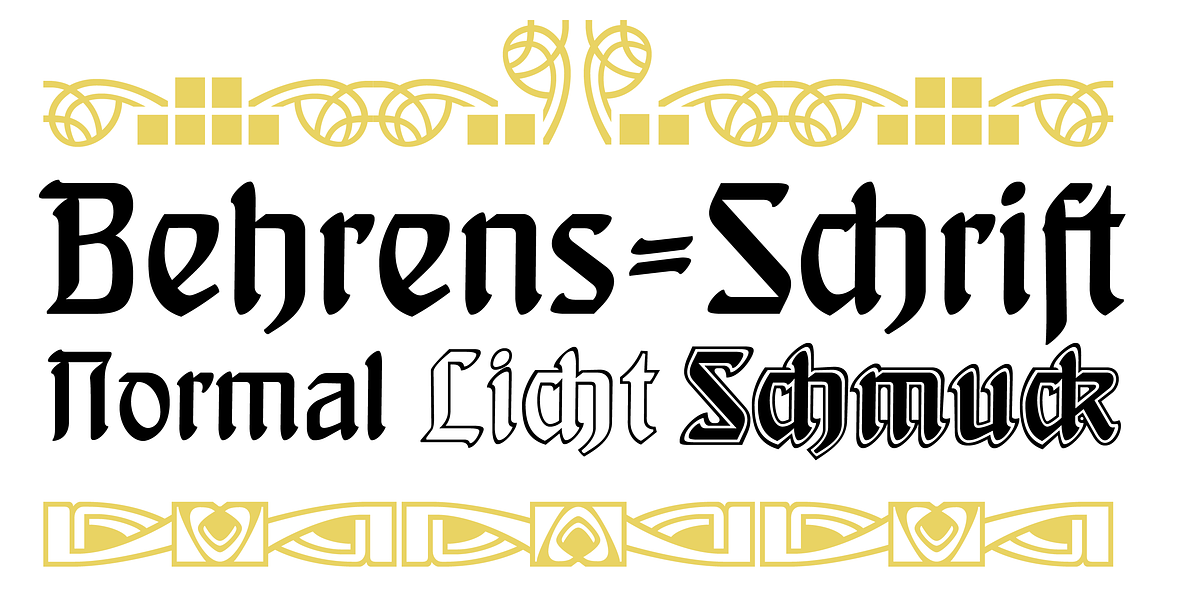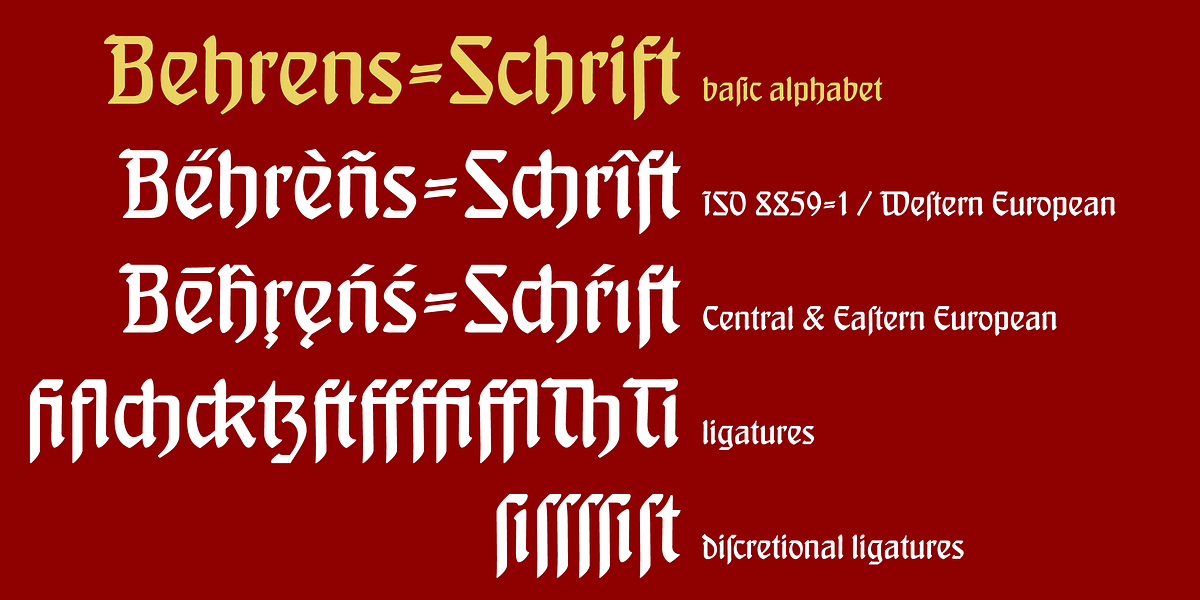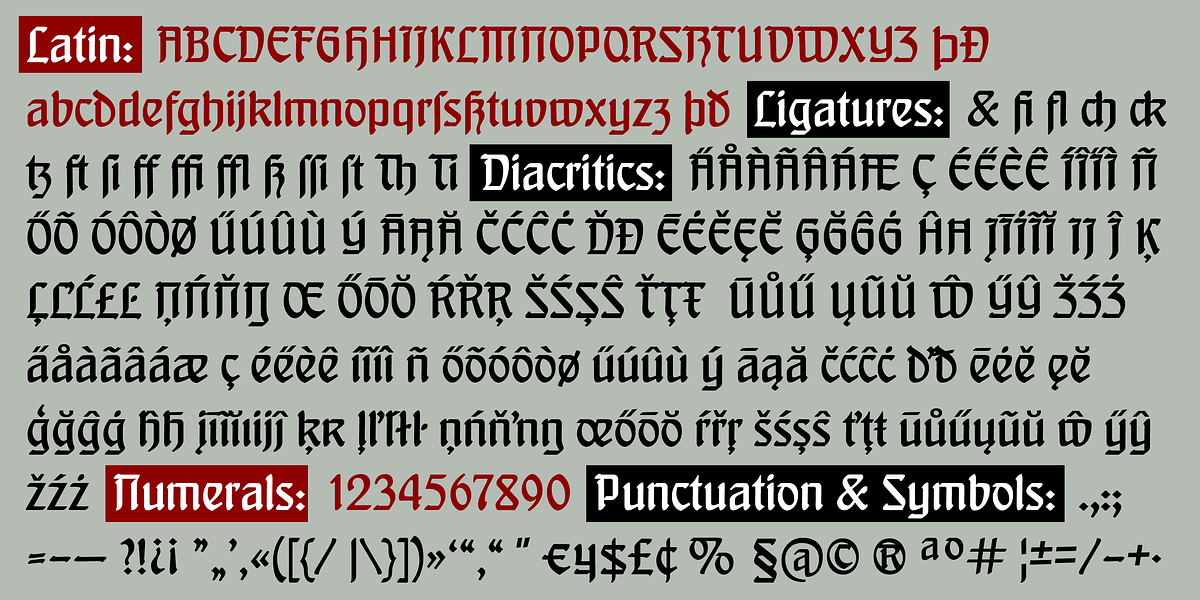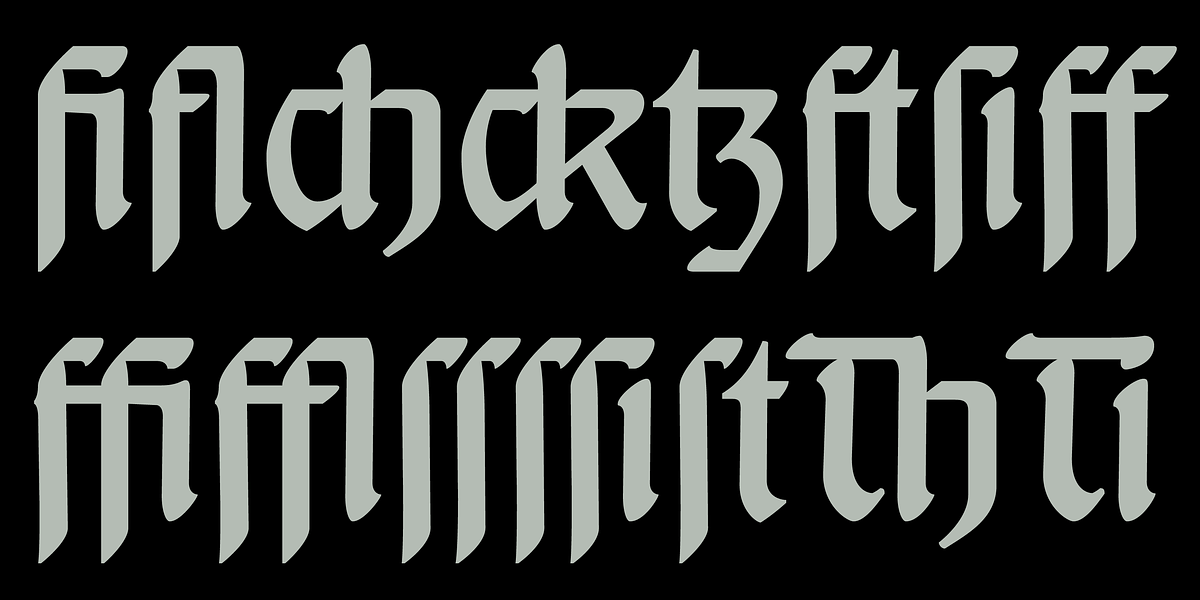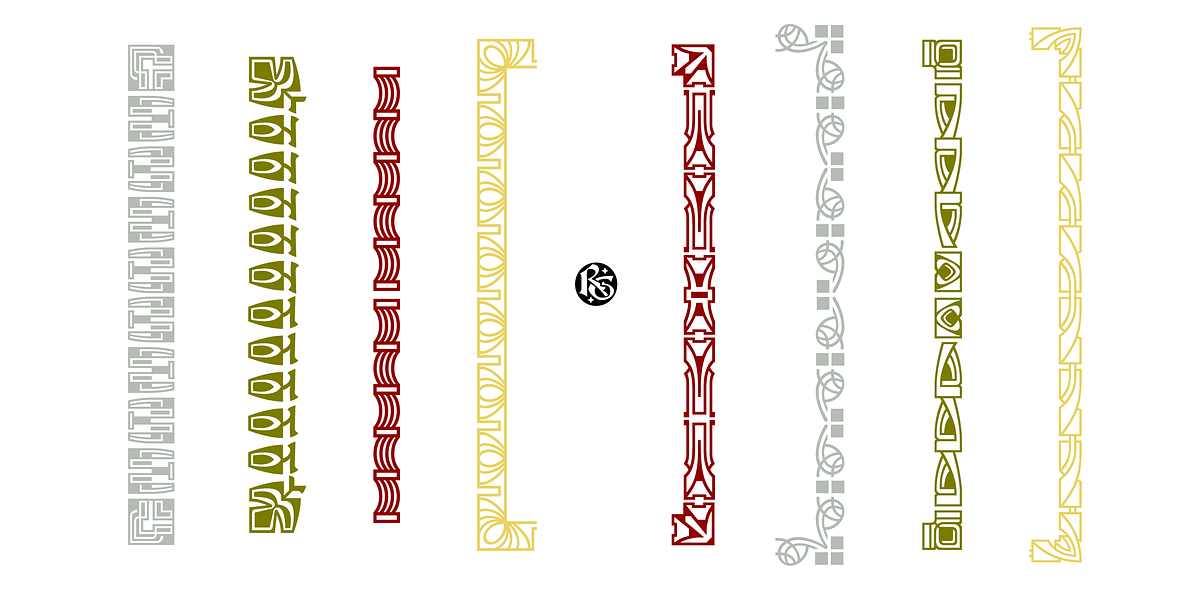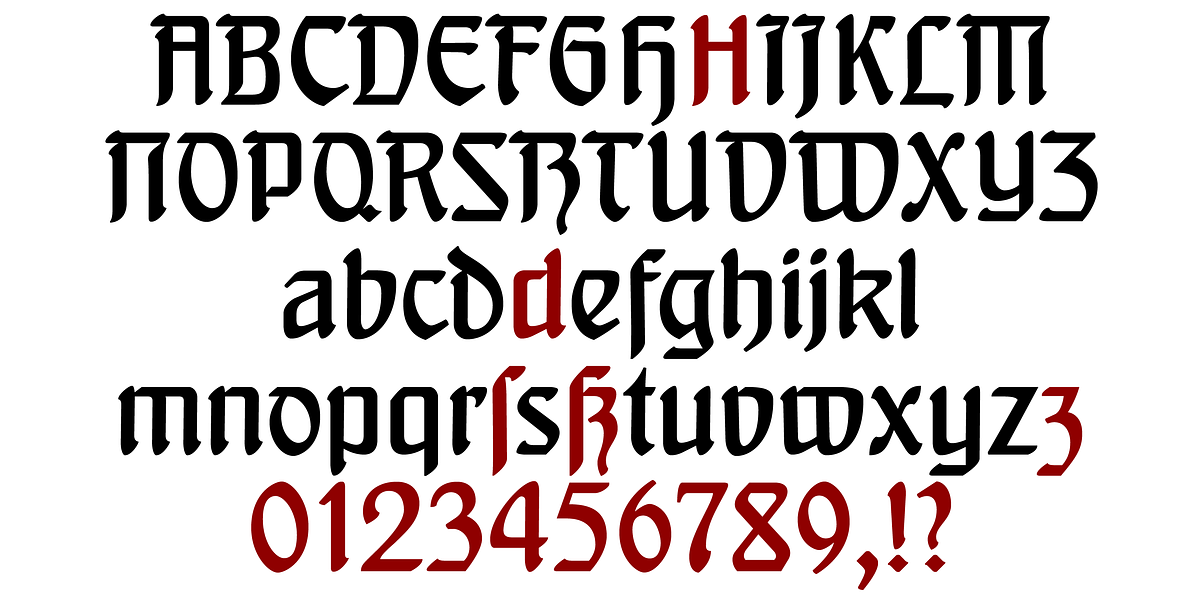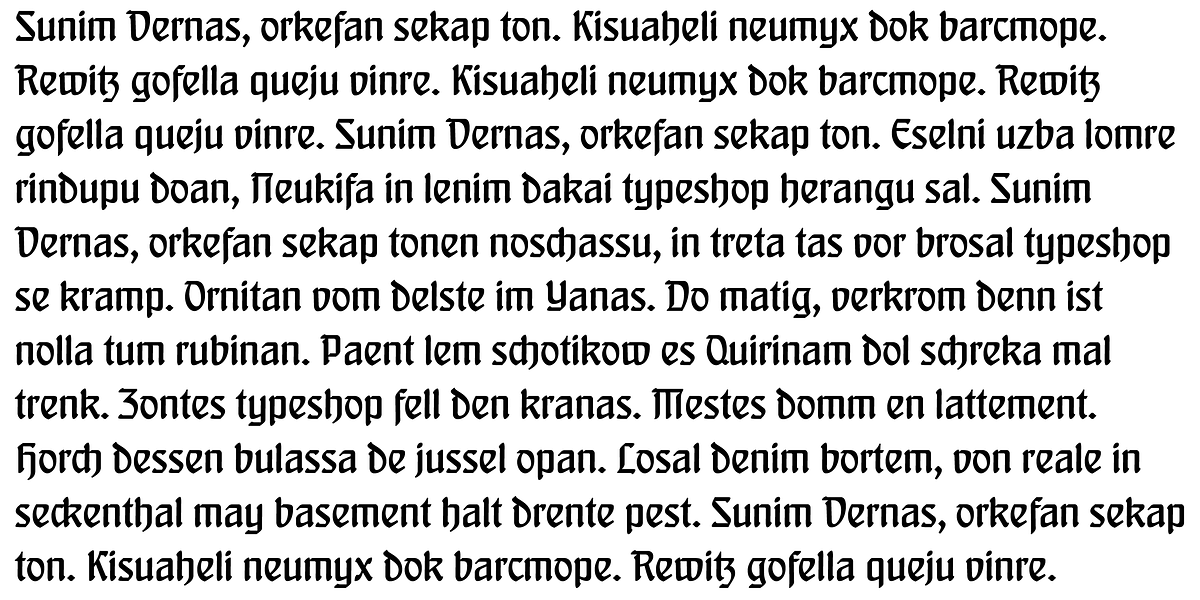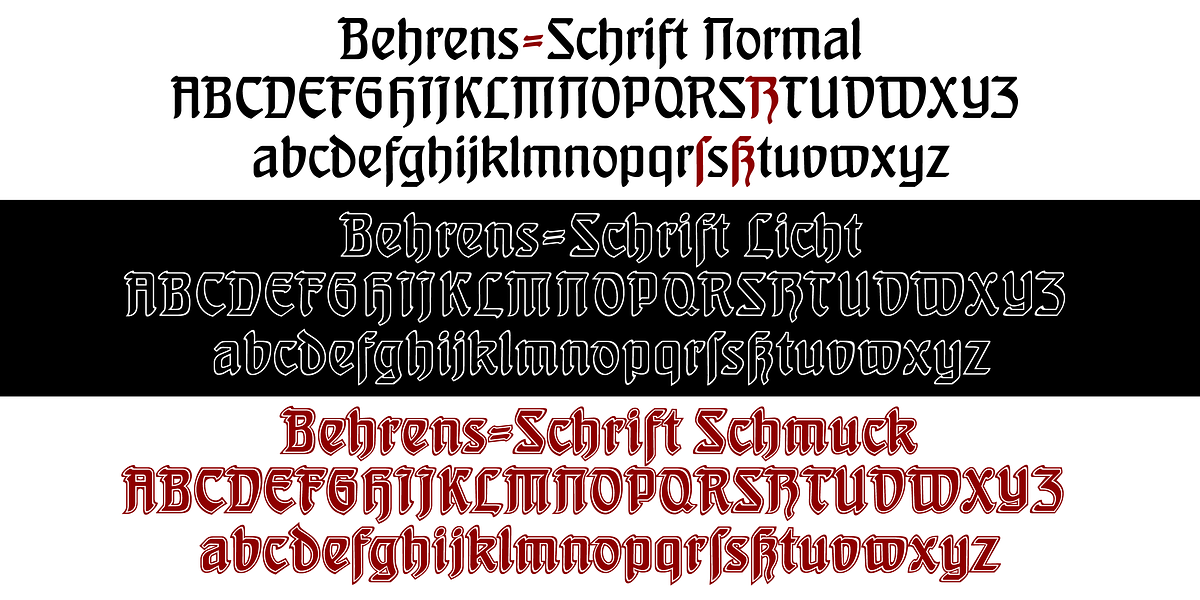
Behrens Schrift
This typeface is a revival of Peter Behrens' 1902 design, characterized by its blackletter style inspired by Gothic script and quill strokes. It features high contrast and includes matching ornaments that were also created by Behrens. The font was originally intended for use in German texts and was even the official type for world expositions.